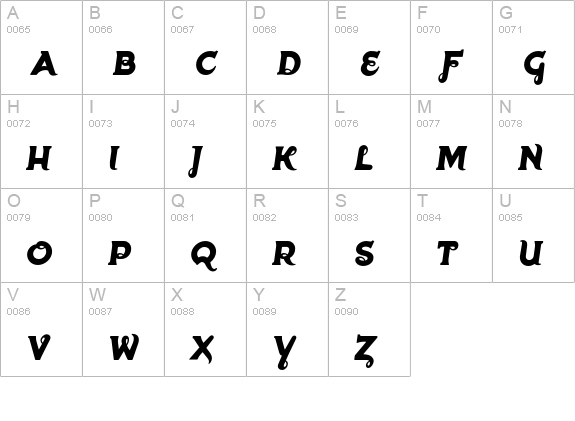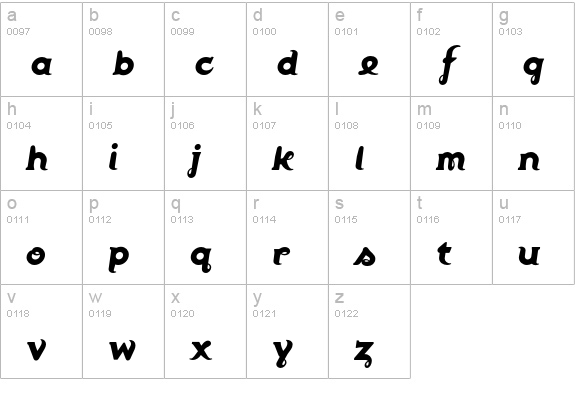
Utility57-CGaugeScript is a visually striking and modern font that will add a touch of elegance to any project. With its sleek and stylish design, this font is perfect for creating eye-catching headlines, logos, and branding materials. The clean lines and unique character shapes make it a versatile choice for both digital and print designs. One of the standout features of Utility57-CGaugeScript is that it is available for free. That's right, you can download this font at no cost from FontsMarket.com. This makes it an ideal choice for designers on a budget or anyone looking to add a touch of sophistication to their work without breaking the bank. Whether you're working on a personal project or a professional design, Utility57-CGaugeScript offers a wide range of possibilities. Its bold and dynamic letterforms are sure to grab attention and make a lasting impression. From posters and flyers to websites and social media graphics, this font will elevate your designs to new heights. The versatility of Utility57-CGaugeScript extends beyond its visual appeal. It is also highly legible and easy to read, making it a practical choice for any type of content. Whether you're designing a magazine spread, a signage system, or a digital interface, this font will ensure that your message is delivered with clarity and impact. In conclusion, Utility57-CGaugeScript is a must-have font for any designer. Its modern and sophisticated design, combined with its affordability (it's free!), make it a valuable addition to your font library. So why wait? Head over to FontsMarket.com and download Utility57-CGaugeScript today to unleash your creativity and bring your designs to life.